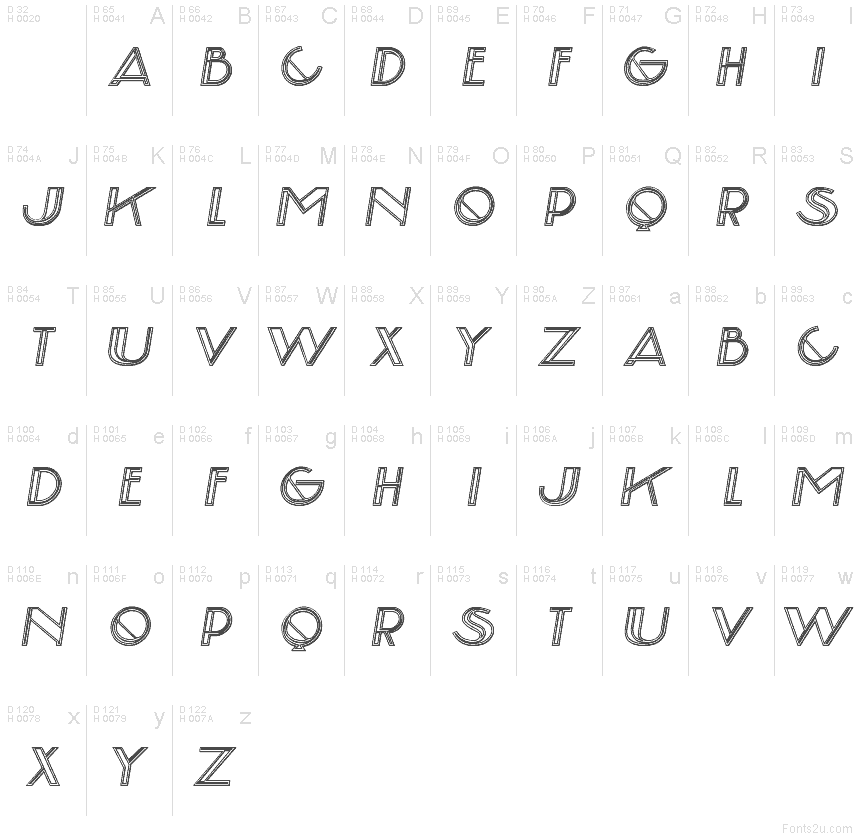
Louvre Extravagant Italic
Louvre Extravagant Italic font by Vladimir Nikolic is a retro expanded display typeface with geometric elements and futuristic vibes. Architectural by nature with art deco influences and a symmetrical design, this layered font is an elegant choice to have.